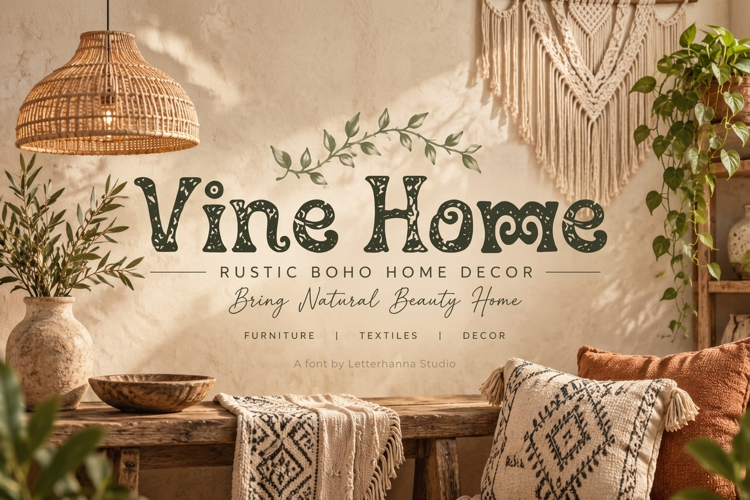
Paduloki Only Font
Meet Paduloki 🌾 a swirly font packed with hand-drawn charm. Every letter is filled with tiny dots and doodled florals, giving it a warm, textile-inspired texture unlike your average curly typeface. Bold curls, playful loops, and an unmistakable folk-art soul make it perfect for boho branding, packaging, invitations, and craft businesses that want to feel handmade — not mass-produced. If your project needs warmth and character, Paduloki delivers both. Download it today and start designing with heart. ✨